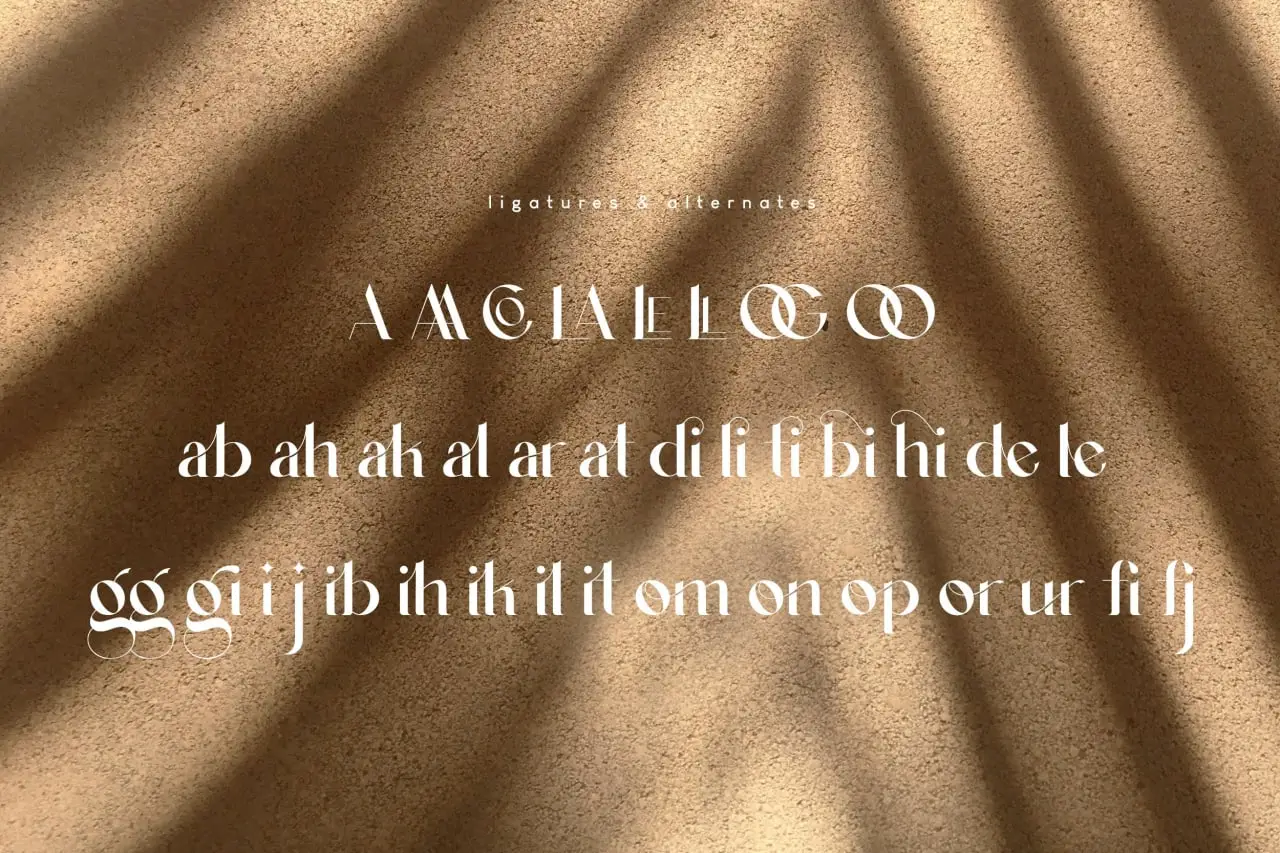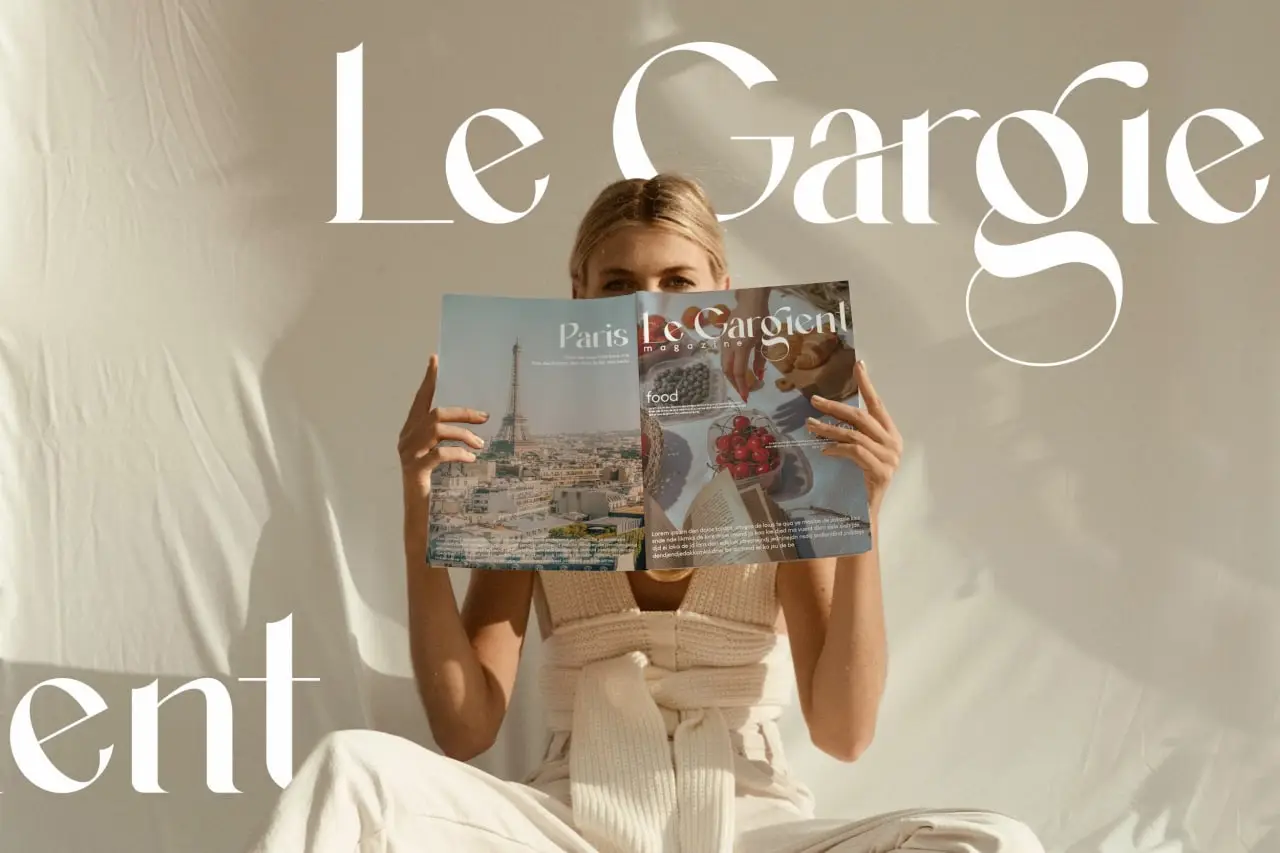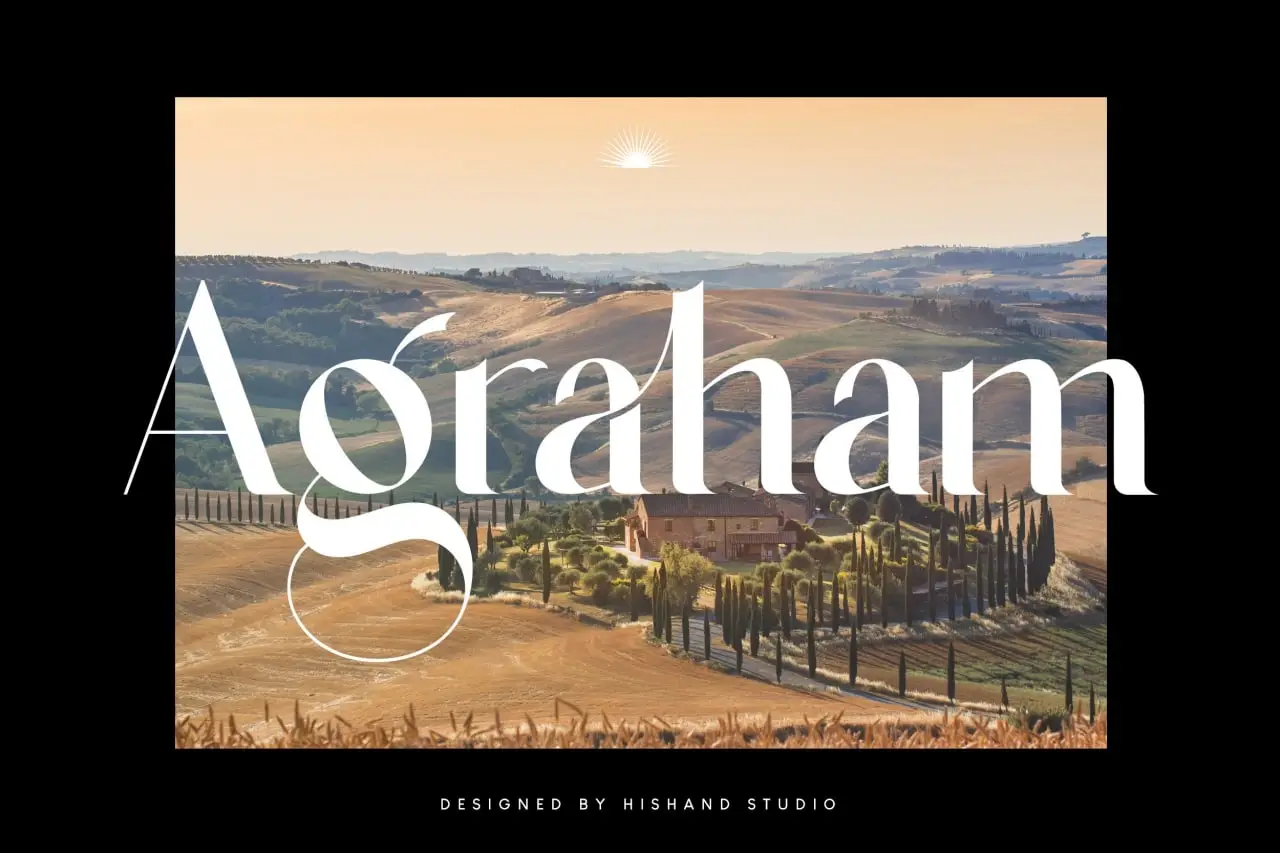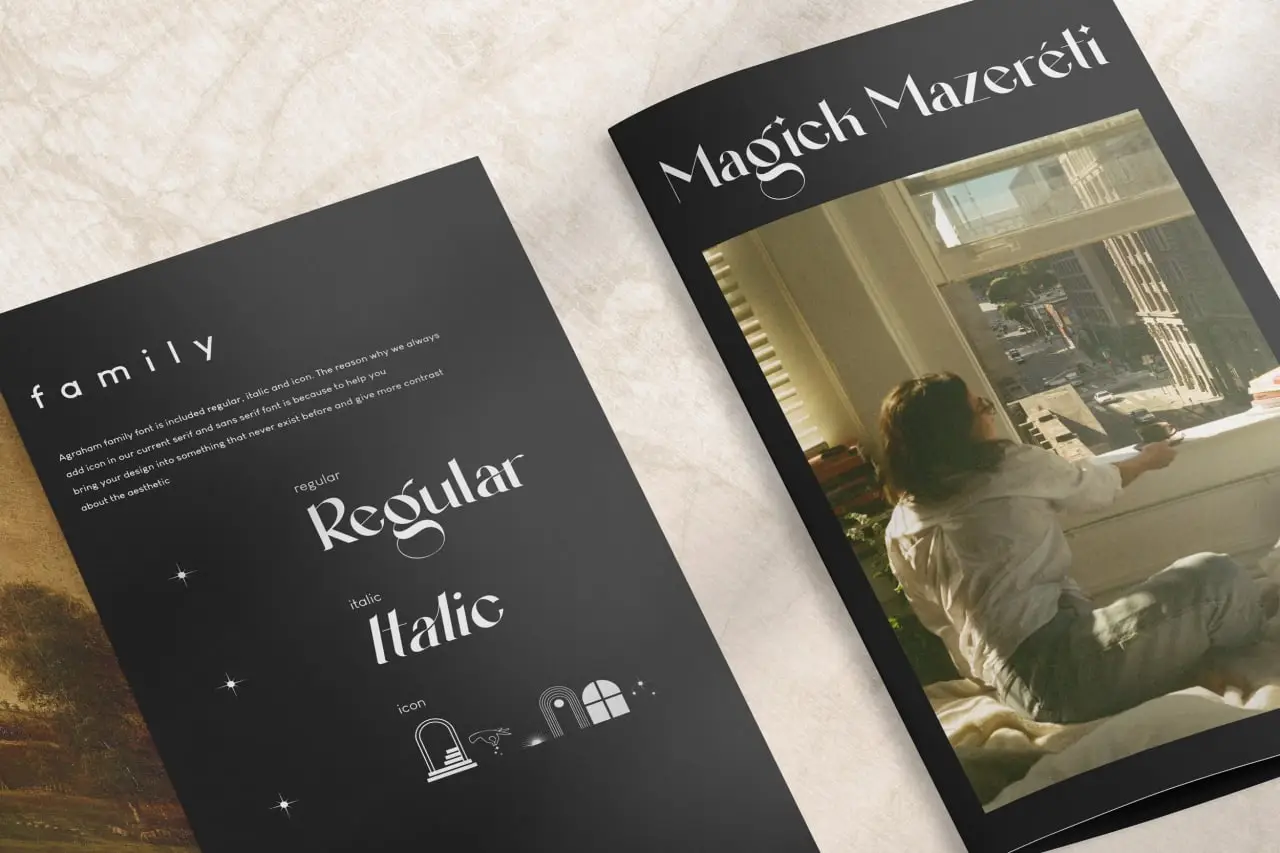
Hishand Studio-Agraham Serif Font
The Hishand Studio-Agraham Serif Font is a beautifully crafted typeface that combines elegance with readability. With its classic serif design, this font is perfect for a variety of applications, including branding, logos, web design, print materials, and user interfaces.
• Stylish serif design
• Optimized for both web and print usage
Utilize the Hishand Studio-Agraham Serif Font for elegant branding projects, sophisticated editorial designs, and modern web layouts to create a lasting impression.